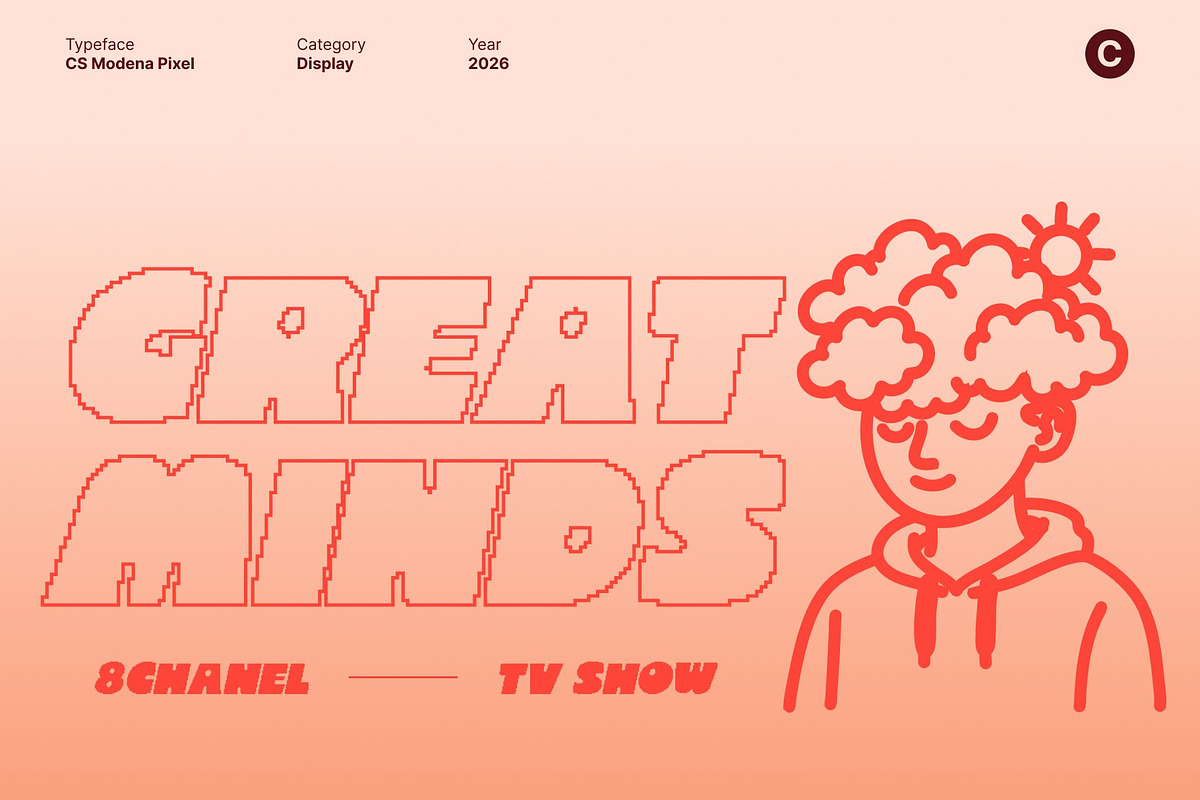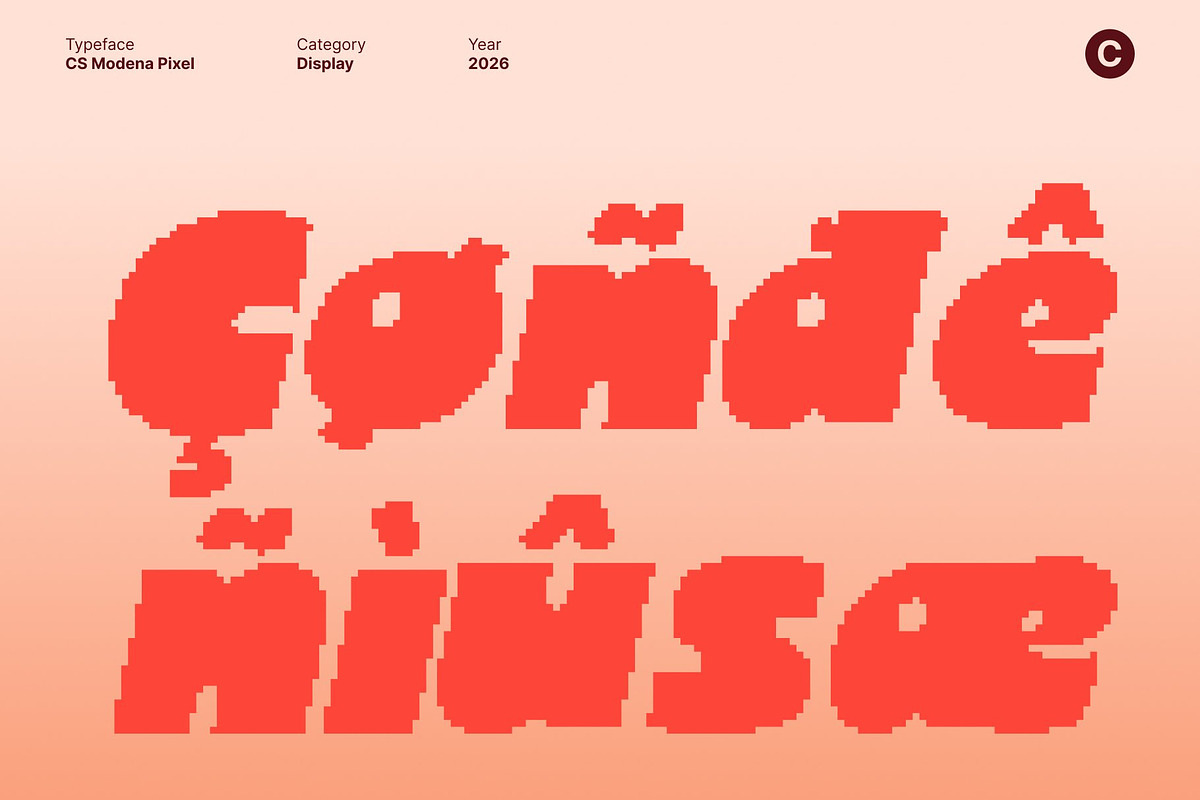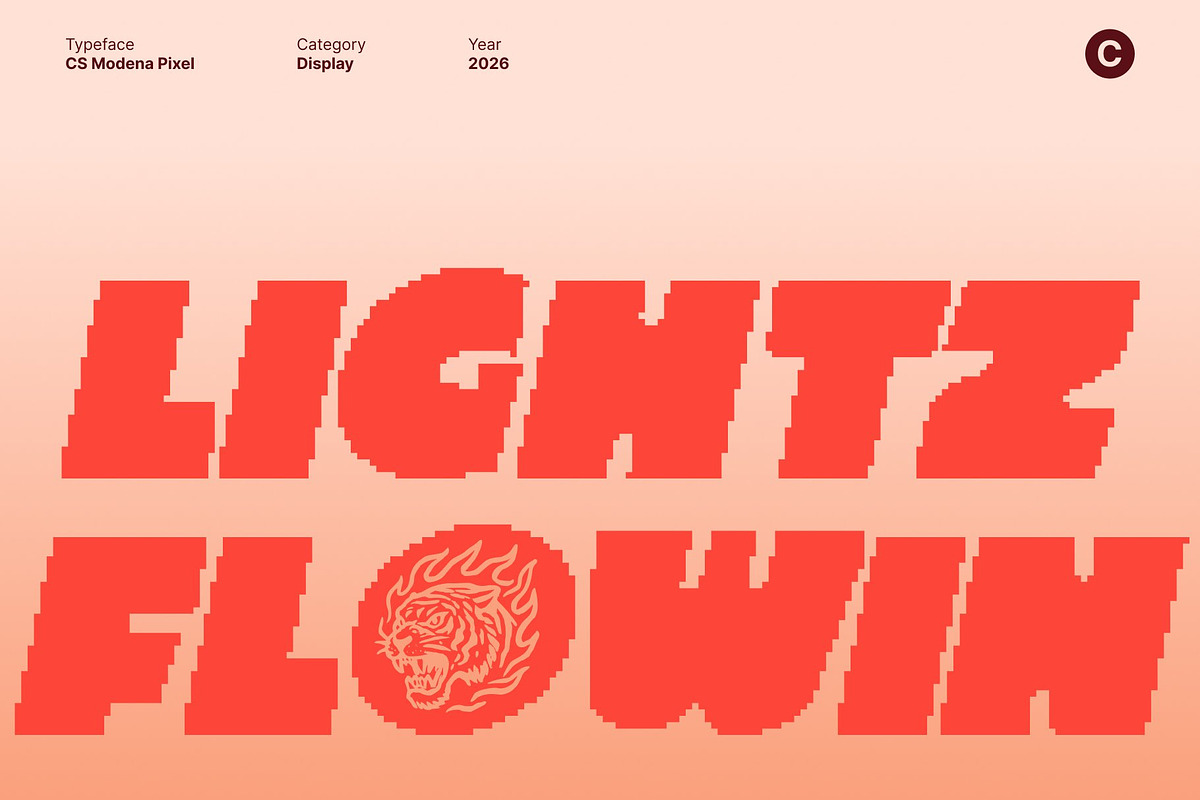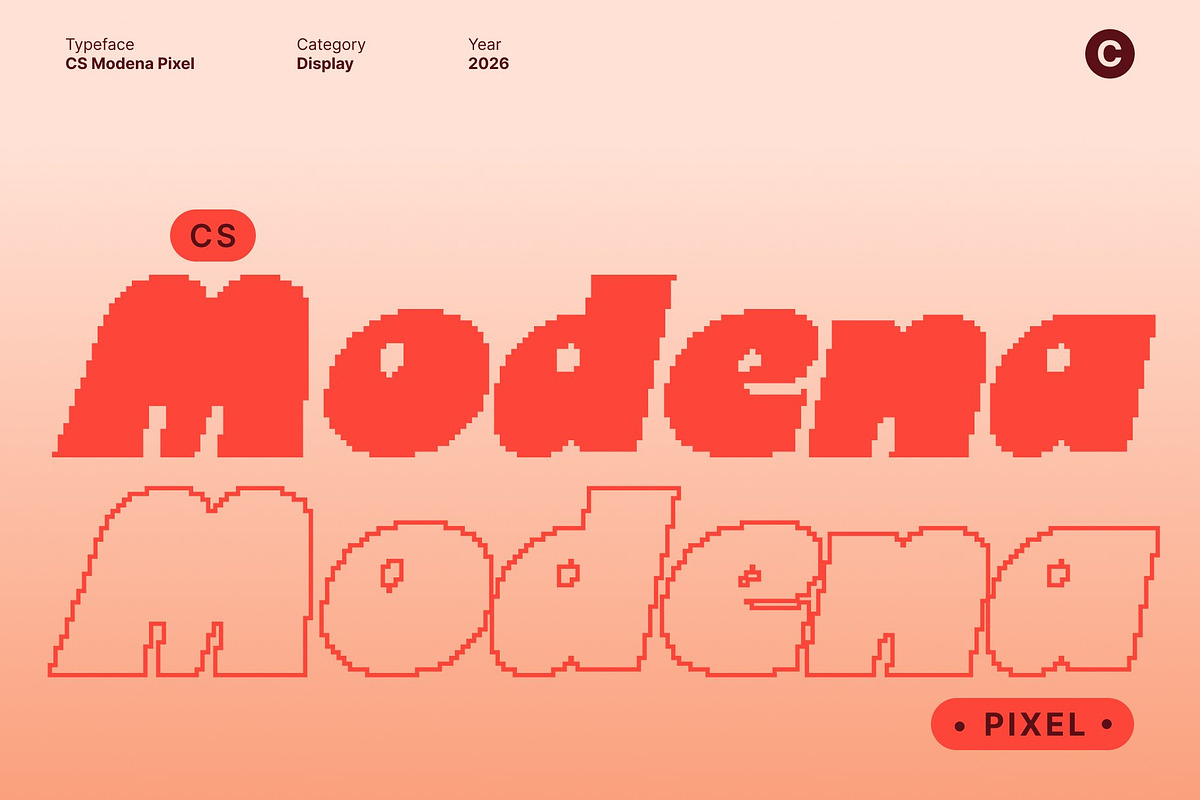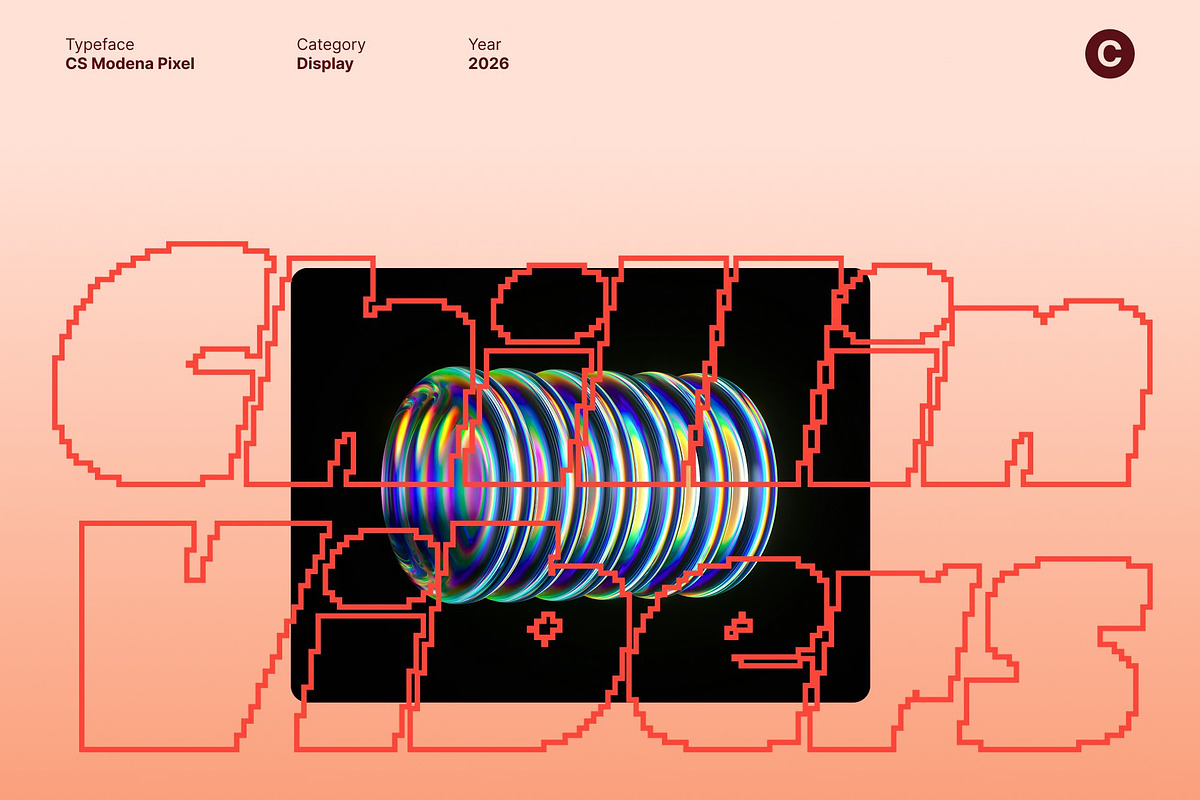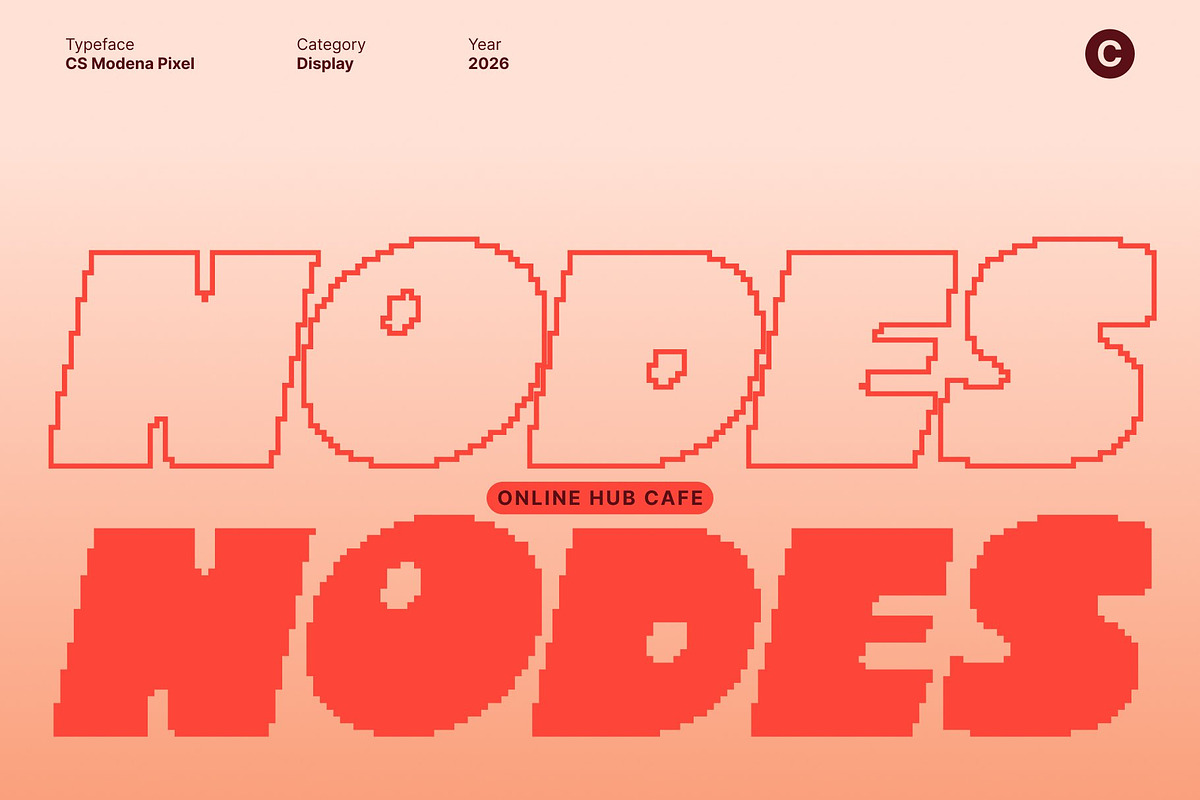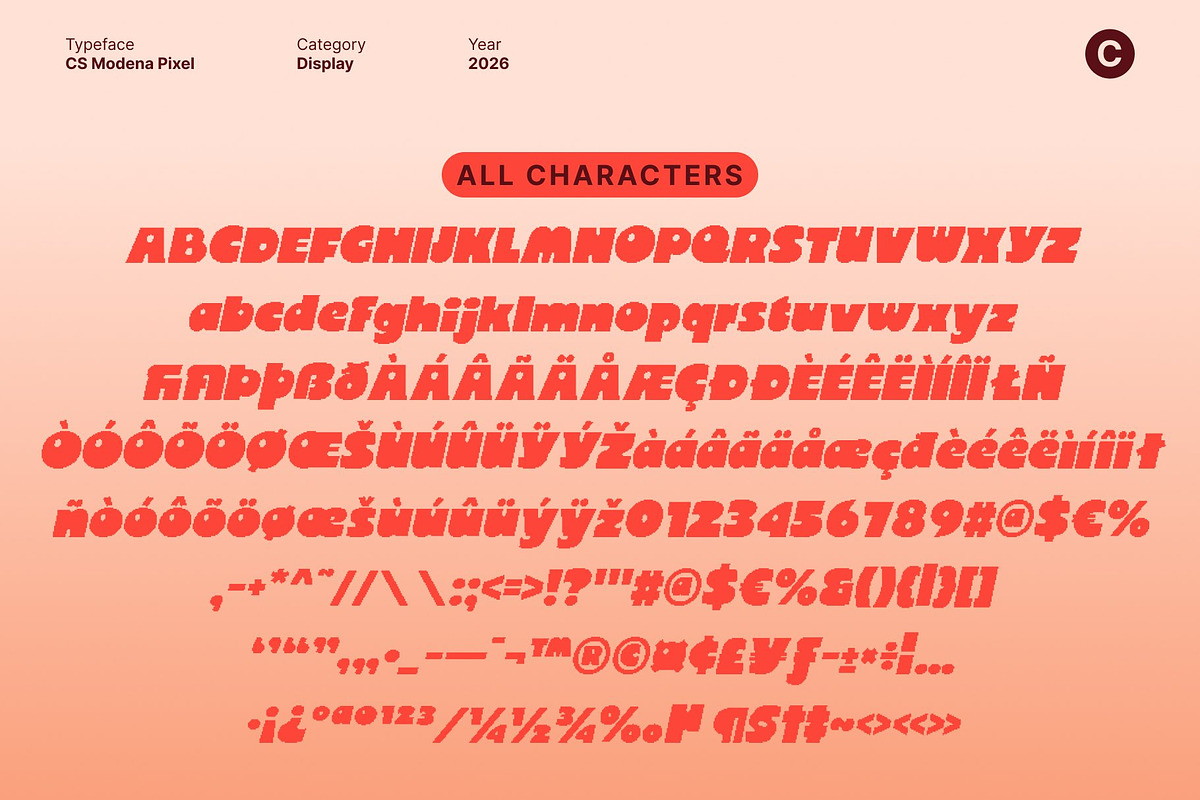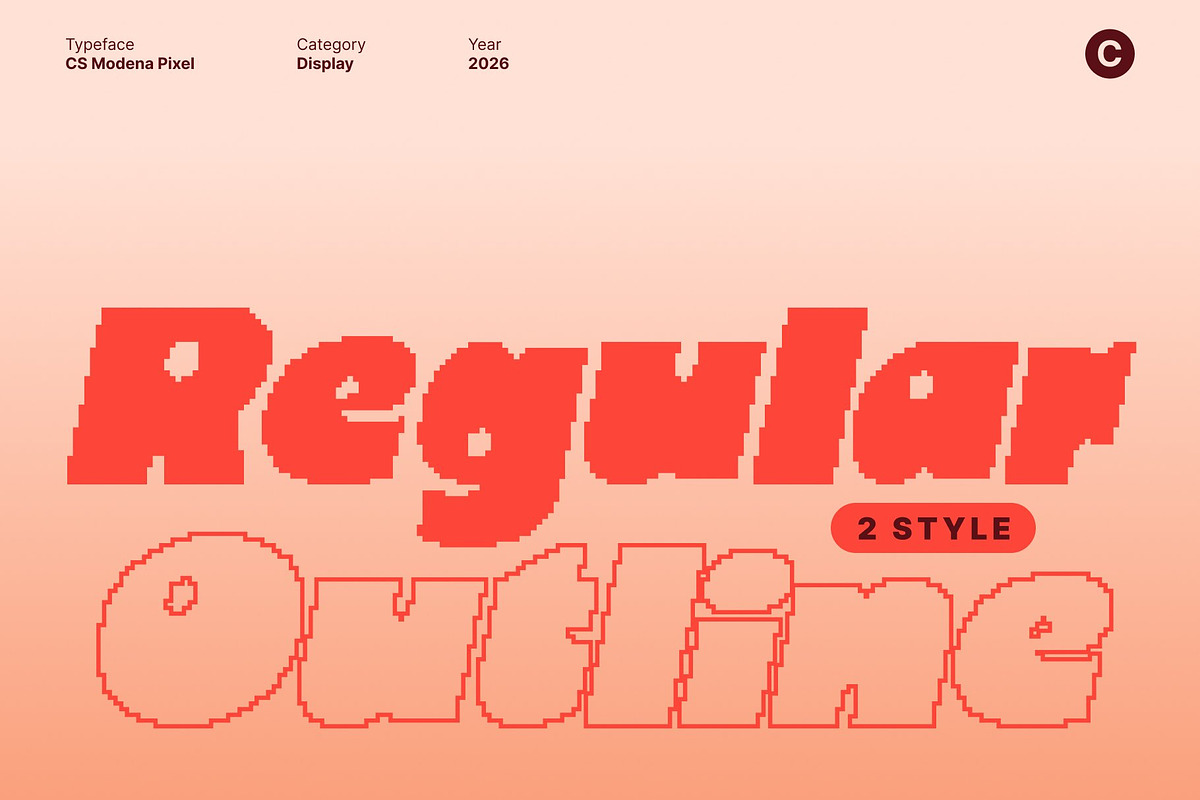
CS Modena Pixel
CS Modena Pixel – Bold Display Font with Funky Digital Charm
Classic Sans-Serif Display with Pixel Energy This is a bold sans-serif display font featuring strong, clean letterforms enhanced with pixel-inspired construction. Its solid shapes deliver instant impact and clarity, while the digital detailing adds a playful, modern edge that keeps the font feeling fresh and expressive.
Expressive Character with Funky Pixel Personality More than a standard bold sans serif, this font carries a funky attitude through subtle pixel structure and confident proportions. This unique personality makes text eye-catching and memorable, perfect for designs that want to feel original while staying clean and professional.
Versatile for Bold, Eye-Catching Statements Designed for impact, this font excels in headlines, branding, logos, packaging, posters, and social media graphics. Its balance of boldness, readability, and pixel flair allows it to adapt easily across creative and modern corporate projects.
Strong Structure Meets Stylish Digital Flair This font bridges strong geometric form with stylish individuality. Whether used in minimalist layouts or vibrant campaigns, it ensures messages stand out with authority, energy, and a distinctive digital character.
- CS Modena Pixel Regular
- CS Modena Pixel Outline